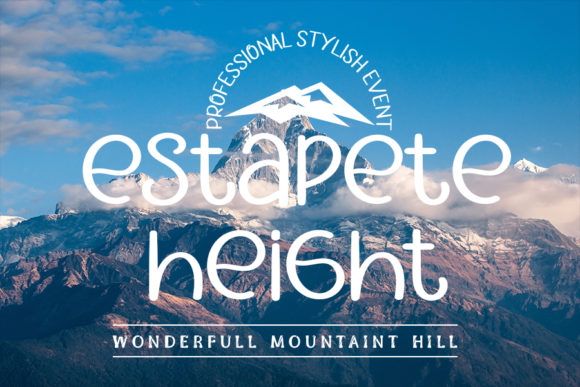
Elegant Style Font: Elevate Your Designs with Minimalist Sophistication
In the world of typography, fonts play a crucial role in conveying the tone and personality of a design. When it comes to creating visually stunning and professional-looking projects, selecting the right font is essential. One font that has gained significant attention in recent times is the Elegant Style Font, a minimal and neat sans serif font that has become a popular choice among designers. In this article, we’ll delve into the world of Elegant Style Font, exploring its features, benefits, and uses, as well as provide tips on how to incorporate it into your creative projects.
What is Elegant Style Font?
Elegant Style Font is a modern sans serif font that exudes simplicity and sophistication. Its clean lines, minimal ornamentation, and balanced proportions make it an excellent choice for a wide range of design applications. This font is perfect for designers who want to create elegant and refined designs that convey a sense of luxury and professionalism.
Benefits of Using Elegant Style Font
So, what makes Elegant Style Font a popular choice among designers? Here are some benefits of using this font in your projects:
- Versatility: Elegant Style Font can be used in a variety of design applications, from branding and advertising to packaging and digital media.
- Readability: The font’s clean and simple design makes it highly readable, even at small sizes.
- Elegance: The font’s minimalist aesthetic gives it an air of sophistication and luxury, making it perfect for high-end designs.
- Flexibility: Elegant Style Font can be used in both digital and print applications, making it a great choice for designers who work across multiple mediums.
Creative Project Ideas Using Elegant Style Font
Elegant Style Font can be used in a wide range of creative projects. Here are some ideas to get you started:
- Branding and Logo Design: Use Elegant Style Font to create a sophisticated and professional brand identity.
- Advertising and Marketing: The font’s clean design and high readability make it perfect for use in ads, brochures, and marketing materials.
- Packaging Design: Elegant Style Font can add a touch of luxury to product packaging, making it perfect for high-end brands.
- Digital Media: Use the font in digital media, such as website designs, social media graphics, and email newsletters.
Tips and Tricks for Using Elegant Style Font
Here are some tips and tricks for getting the most out of Elegant Style Font:
- Pair it with other fonts: Elegant Style Font can be paired with other fonts to create a unique and visually appealing design.
- Experiment with colors: The font’s simplicity makes it easy to experiment with different colors and color combinations.
- Use it consistently: Consistency is key when using Elegant Style Font. Use it throughout your design to create a cohesive look.
Font Pairing Ideas with Elegant Style Font
Elegant Style Font can be paired with other fonts to create a unique and visually appealing design. Here are some font pairing ideas:
- Montserrat: Pair Elegant Style Font with Montserrat for a modern and sophisticated look.
- Lato: Combine Elegant Style Font with Lato for a clean and elegant design.
- Raleway: Pair Elegant Style Font with Raleway for a luxurious and refined look.
Elegant Style Font is a versatile and sophisticated font that can elevate your designs to the next level. Its clean design, high readability, and minimalist aesthetic make it perfect for a wide range of creative projects. By incorporating Elegant Style Font into your designs, you can create visually stunning and professional-looking projects that convey a sense of luxury and sophistication.